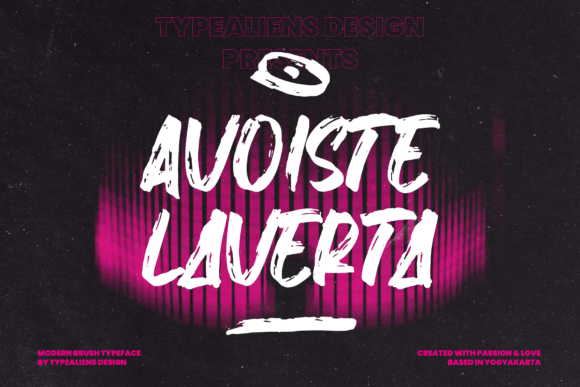
Behold, font enthusiasts and typography aficionados, brace yourselves for the arrival of Avoiste Laverta, the brushed display font poised to ignite your creative spirit. Embark on a journey into the realm of captivating designs and let your imagination soar with this masterpiece from the renowned typealiens foundry.
Avoiste Laverta is not just a font; it's an artistic expression, a dance of strokes and curves that will add a touch of uniqueness to your every project. Dive into a world of infinite possibilities, where your words will command attention and your ideas will come to life with unparalleled elegance.
With its striking, hand-crafted charm, Avoiste Laverta effortlessly blends the allure of vintage aesthetics with a refreshing contemporary twist. Its bold, confident strokes exude a sense of authenticity and timeless appeal, while its dynamic letterforms create a captivating rhythm that draws the eye and captivates the senses.
Unleash your creativity and let Avoiste Laverta take center stage in your typography posters, branding projects, and social media designs. Its versatile nature makes it an ideal choice for bold headlines, eye-catching logos, and evocative quotes that demand attention.
Picture yourself crafting stunning wedding invitations that exude romance and sophistication, or designing posters for events that radiate energy and excitement. Let Avoiste Laverta be your muse as you create business cards that leave a lasting impression or social media posts that ignite engagement and inspire action.
But Avoiste Laverta's charm extends far beyond the digital realm. It's perfect for adding a touch of personality to physical products, from hand-crafted greeting cards to customized T-shirts. Imagine the delight of your loved ones as they receive a letter penned with Avoiste Laverta's distinctive flair, or the admiration your friends express when they see you wearing a shirt adorned with its captivating characters.